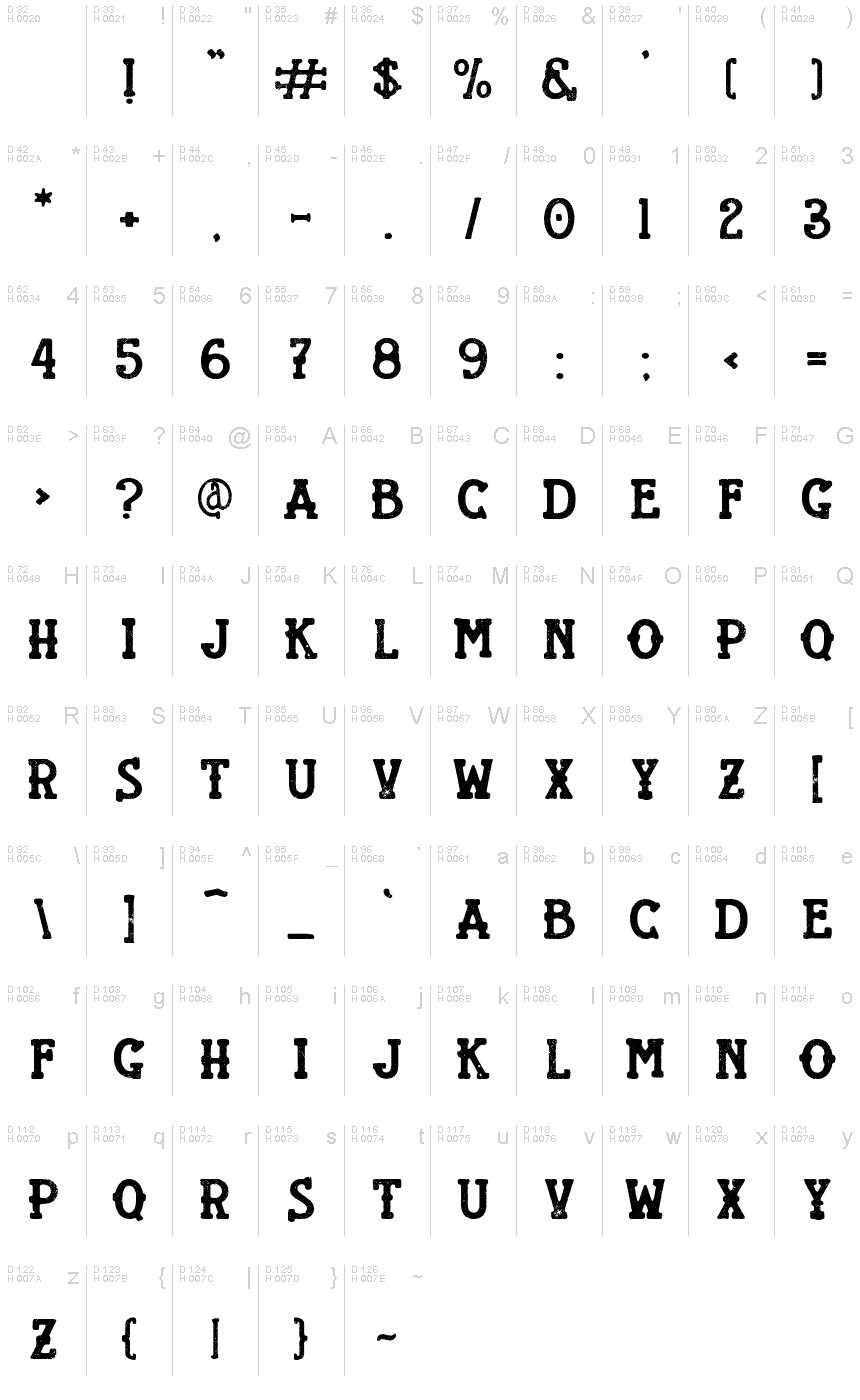
Bikers Church
Bikers Church, an eroded retro display font designed by Woodcutter Manero, is the perfect choice for projects that require a bold and eye-catching visual impact. With its classic vintage look, this font is great for logos and posters with a nostalgic feel. It is also ideal for packaging designs, apparel branding, and editorial designs.